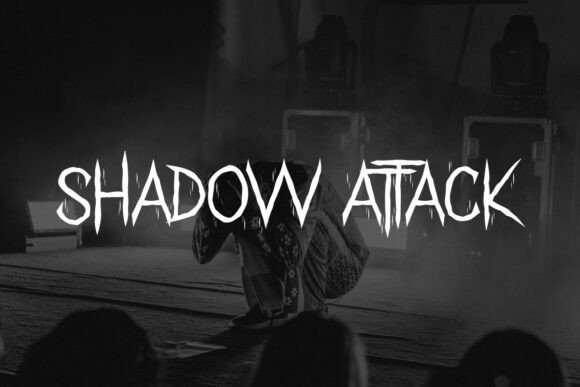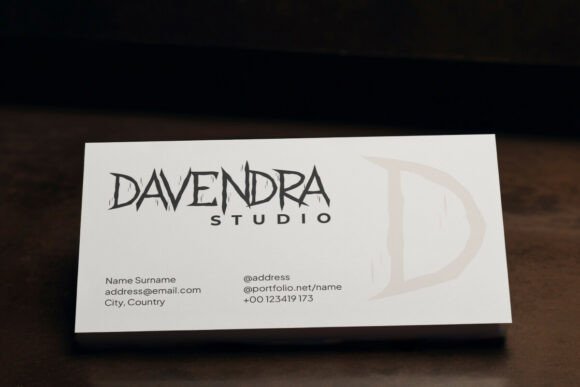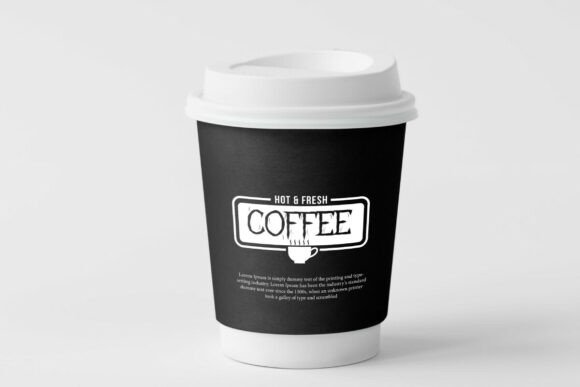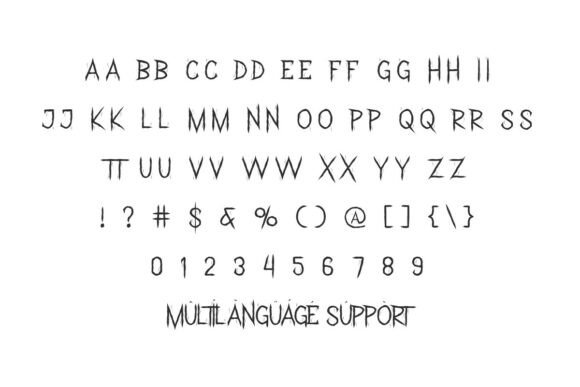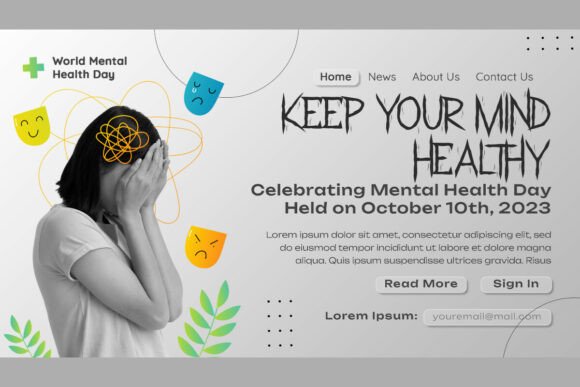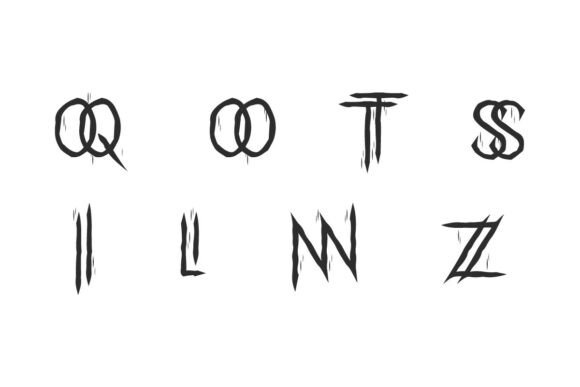
Unleashing the Power of the Shadow Attack Font
Have you ever been brainstorming for a creative project, pouring over design ideas, and then – BAM! – a font comes along and blows your mind? For designers, that moment is like hitting the jackpot. It’s the spark that ignites a new idea, elevates a concept, and leaves a lasting impression. For me, that moment came when I discovered the Shadow Attack font. Its raw energy and edgy style are a game-changer for any design project.
The Shadow Attack Font is more than just a font – it’s a design resource that can take your creative vision to the next level. With its high-quality, intricate letterforms and transparent background, it’s perfect for adding a touch of grit and attitude to your designs. Whether you’re working on a free download or a paid project, this font is a must-have for any designer looking to create high-impact visuals.
Key Features of Shadow Attack Font
- High-quality design: Shadow Attack Font is a premium design resource perfect for creative projects that demand attention-grabbing typography.
- Transparent background: The font features a transparent background, allowing for seamless integration with any design or image.
- Resolution-independent: The font is designed to be resolution-independent, ensuring it looks great on high-resolution displays and prints.
- Unique characteristics: Shadow Attack Font features a unique blend of bold lines and subtle textures, making it perfect for adding a touch of sophistication to any design project.
Honest Review: Shadow Attack Font
I recently came across the Shadow Attack Font, a free download that’s quickly become a go-to resource for my creative projects. The high quality of this font is immediately apparent, making it a great addition to any design.
What works well is the unique aesthetic of this font. The transparent background allows for seamless integration into any design, while the bold, edgy style adds a touch of sophistication.
- ✨ High quality: The crisp, clear lines and precise shapes of this font make it perfect for a variety of design applications.
- ✨ Versatile: The Shadow Attack Font can be used in a range of creative projects, from logos to social media graphics.
One potential limitation is the limited font size options. While the font itself is incredibly versatile, the small font size range may limit its use in certain applications.
Overall, I’m really impressed with the Shadow Attack Font. Its high quality and unique aesthetic make it a valuable resource for any designer. With a bit more flexibility in terms of font size, this font would be nearly perfect for my creative projects.
The Shadow Attack Font is a high-quality design resource perfect for creative projects. It offers a unique aesthetic with its bold, edgy style and transparent background, making it ideal for use in various design applications.
To get the most out of the Shadow Attack Font, experiment with different font sizes, colors, and combinations. This font works well with bold, bright colors and can add a touch of edginess to your designs.
The Shadow Attack Font is perfect for use in various design applications, including:
– Social media graphics
– Advertising materials